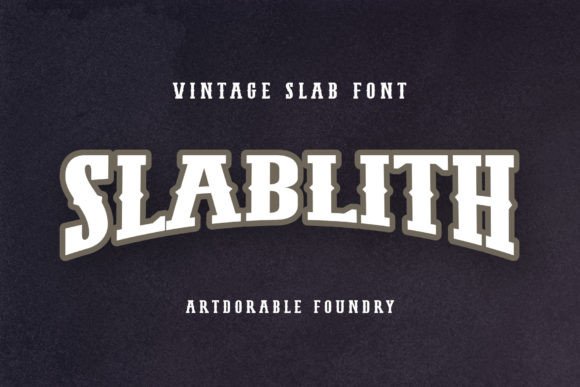
Behold, the extraordinary Slablith Font—a remarkable display font crafted with vintage charm. This font is not just a collection of letters; it's an artistic masterpiece that will captivate your audience and make your designs shine brighter than ever before.
Unleash the allure of a bygone era with Slablith Font. Its unique character evokes a sense of nostalgia, adding a touch of timeless elegance to your projects. Whether you're crafting a captivating book cover, designing an intriguing magazine spread, or creating a social media post that demands attention, Slablith Font is your perfect companion.
Step into a world of creativity and let Slablith Font be your guide. Its versatility knows no bounds, adapting seamlessly to various projects. From invitations that exude sophistication to social media posts that radiate personality, Slablith Font transforms ordinary words into captivating statements.
With Slablith Font, you'll discover a font that's not just easy to read but a pleasure to behold. Its carefully crafted curves and distinct serifs create a visual symphony that dances before the eyes. Get ready to captivate your audience with every word, every design, and every project you create.
So, why settle for ordinary fonts when you can elevate your designs with Slablith Font? Embrace its vintage charm, immerse yourself in its versatility, and let your creativity soar to new heights. Don't just design—create masterpieces with Slablith Font.